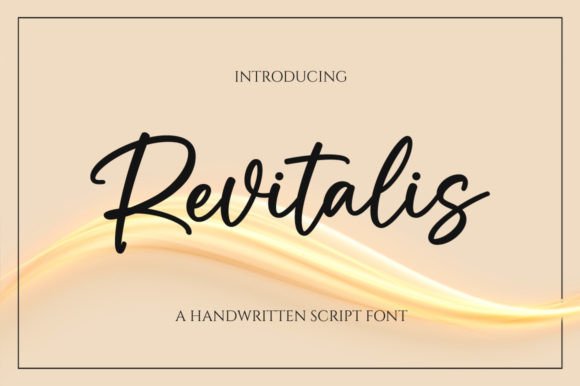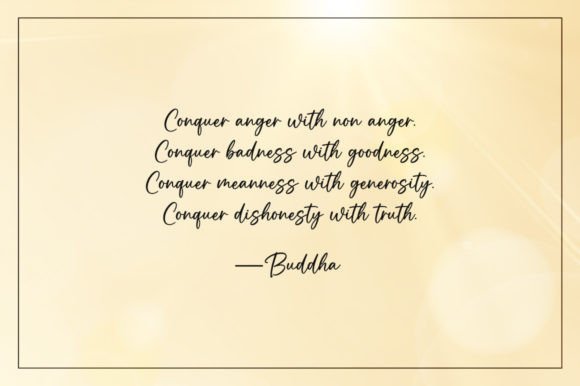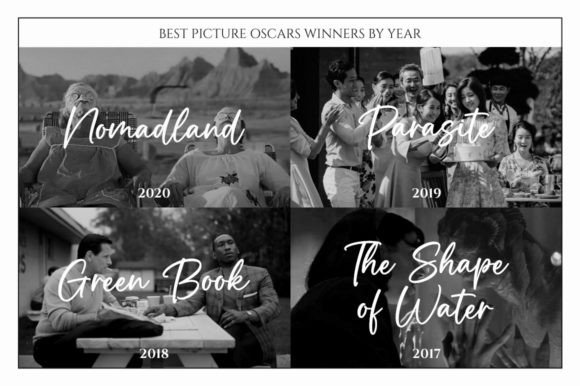
About Revitalis Font
“Revitalis” is a lovely and timeless handwritten font known for its elegance and versatility. This font is an excellent choice for creating eye-catching logos, branding materials, and quotes that aim to convey a sense of beauty and sophistication. Additionally, “Revitalis” is PUA encoded, enabling easy access to all its glyphs and swashes.
The standout qualities of “Revitalis” include its timeless charm and adaptability. Its handwritten style brings an authentic and elegant feel to your projects, making it suitable for various design needs.
Imagine using “Revitalis” to design a captivating logo that exudes a sense of beauty and sophistication for your brand. Picture incorporating this font into branding materials such as business cards, stationery, and product packaging to create a cohesive and refined brand identity. “Revitalis” can also add a touch of elegance to your quotes, making them more captivating and memorable.
In summary, “Revitalis” is more than just a font; it’s a design resource that brings elegance and versatility to your creative work. Its handwritten style makes it adaptable for various design applications where a sense of sophistication and beauty is desired. Embrace “Revitalis” as a font that enhances your designs and adds a timeless touch of elegance, making them more captivating and memorable.